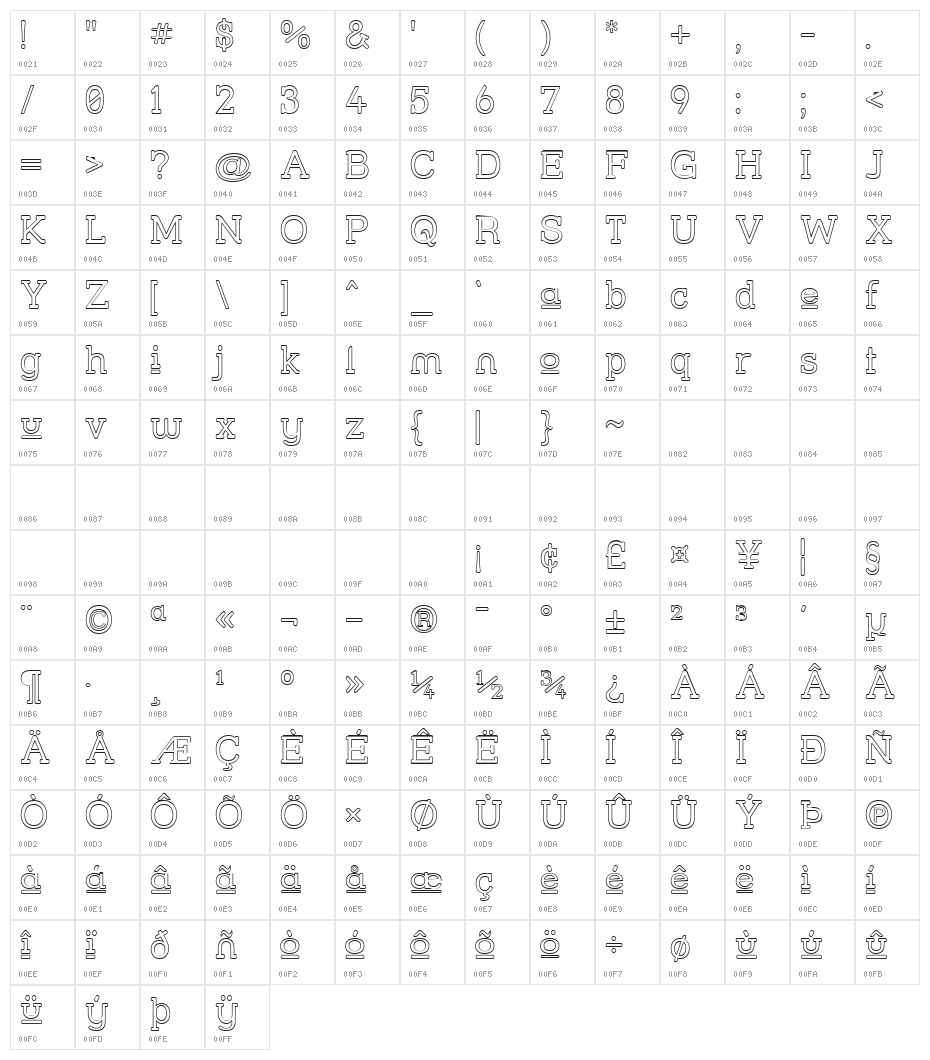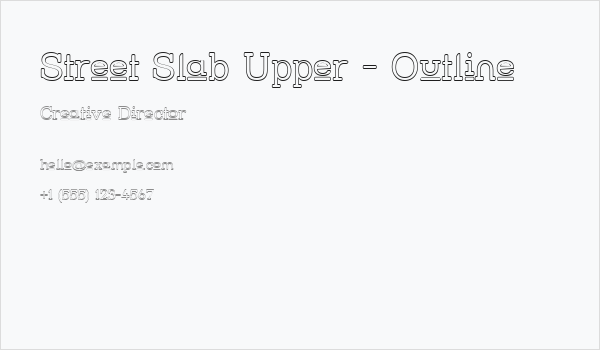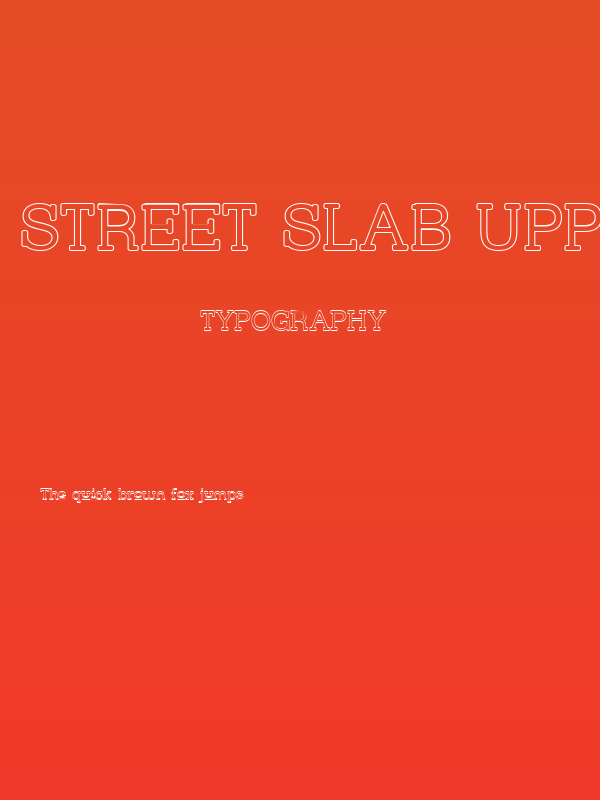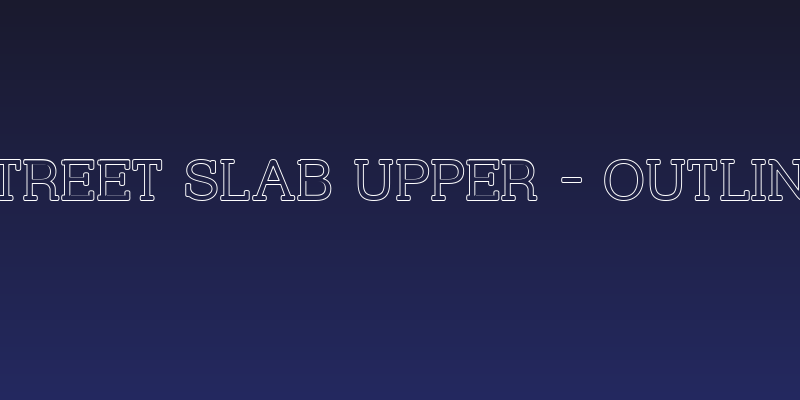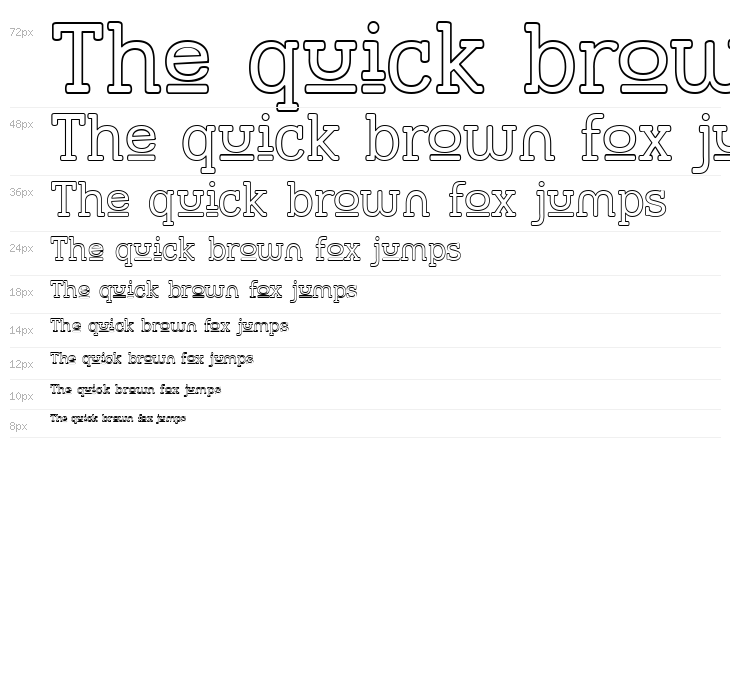
Street Slab Upper - Outline Font
Street Slab Upper - Outline Description
This font features a bold, outlined design with a slab serif style, offering a modern twist on traditional serif fonts. The characters are uppercase and lowercase, with a consistent outline that gives them a distinct and eye-catching appearance. The numerals and special characters maintain this outlined style, ensuring a cohesive look across all elements. The font's structure is clean and geometric, making it suitable for various design applications where clarity and impact are essential.
| Proposed Projects | Ideal for headlines, posters, branding, and any design project requiring a strong visual impact. |